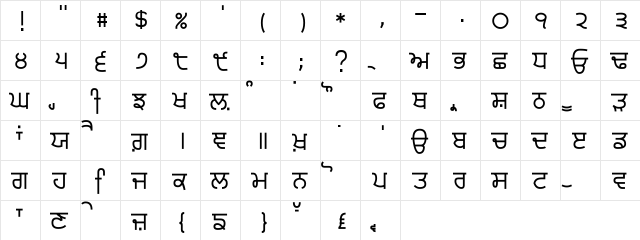
Gurvetica a5 Medium Medium
Design Context for Gurvetica a5 Medium Typeface
Gurvetica a5 Medium is a composed and adaptable typeface that performs quietly and consistently across a wide range of design contexts.